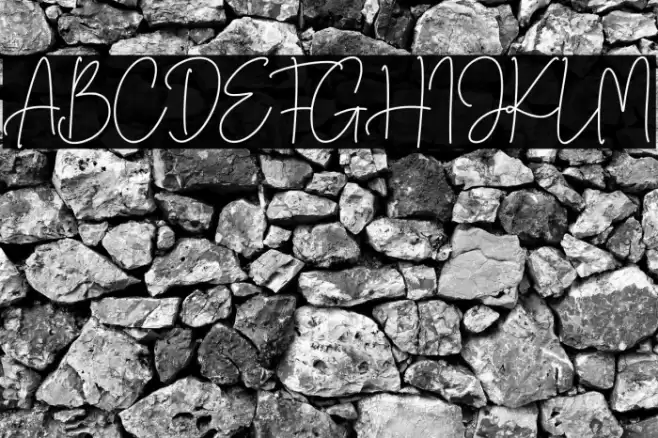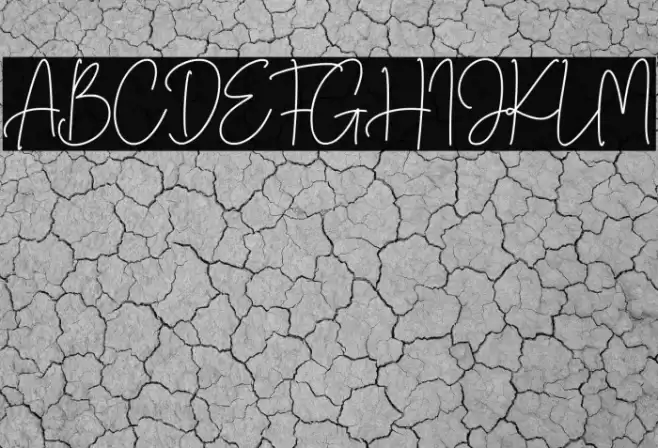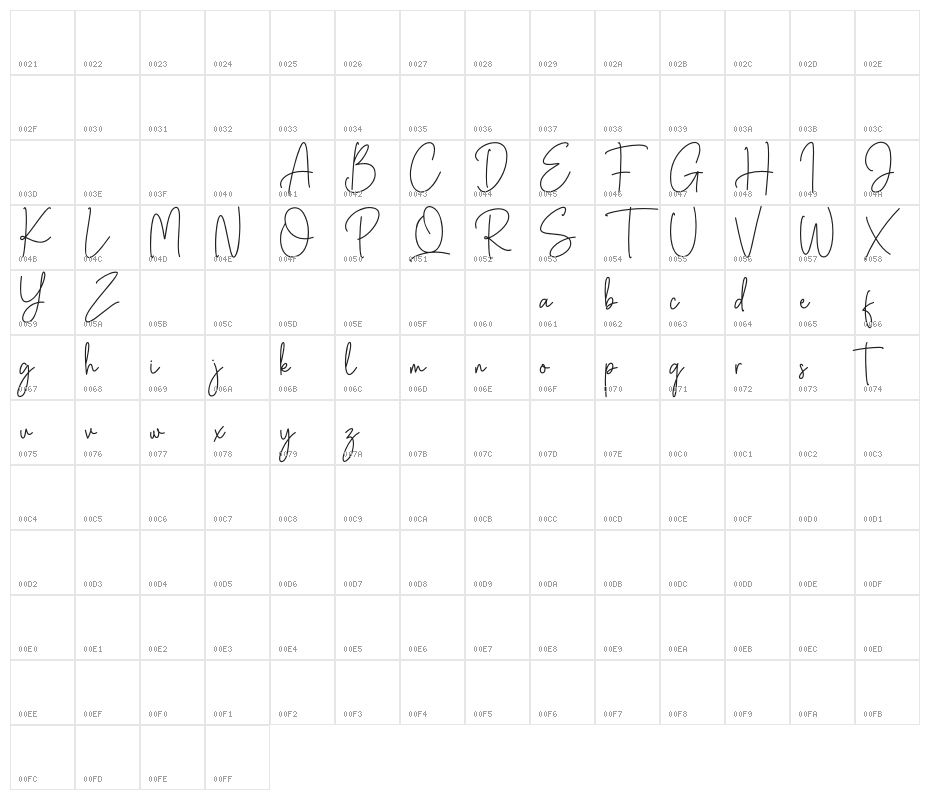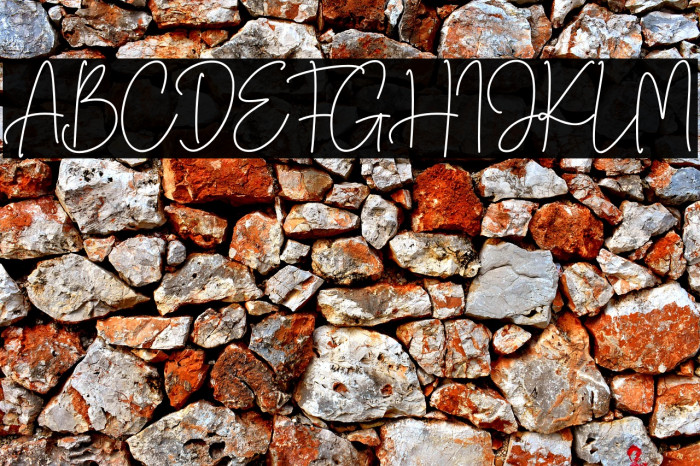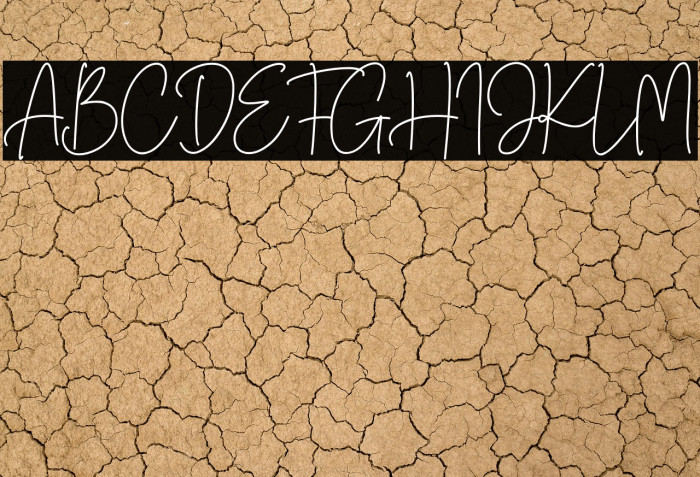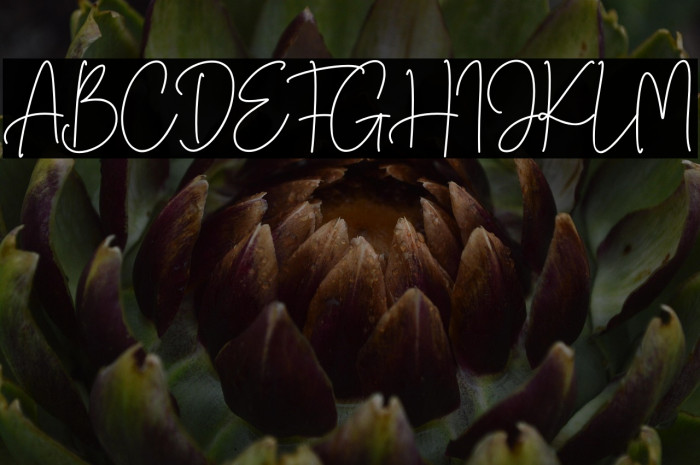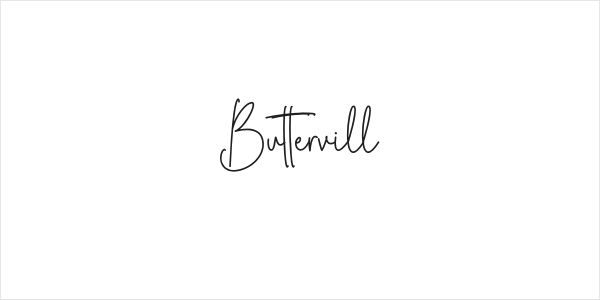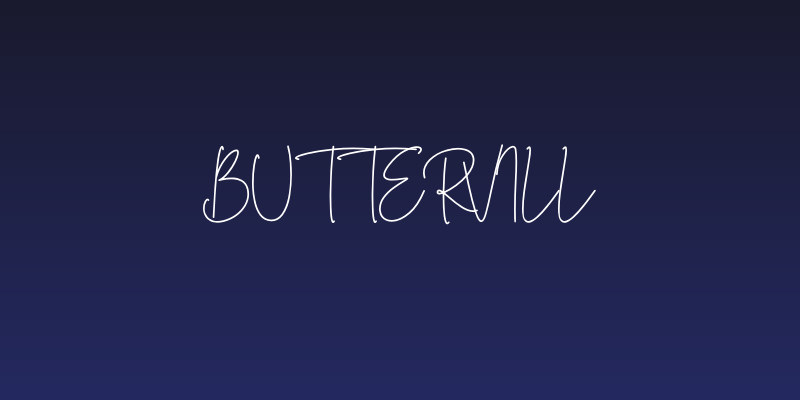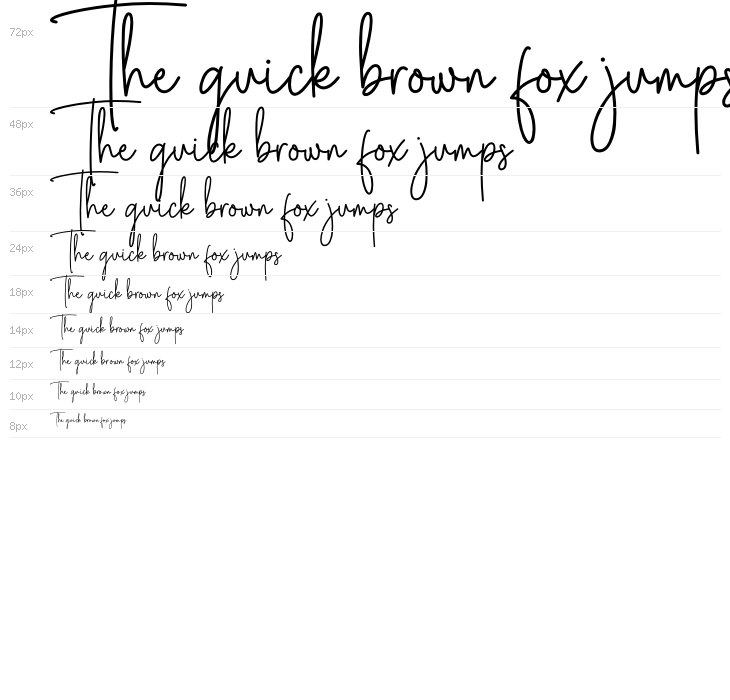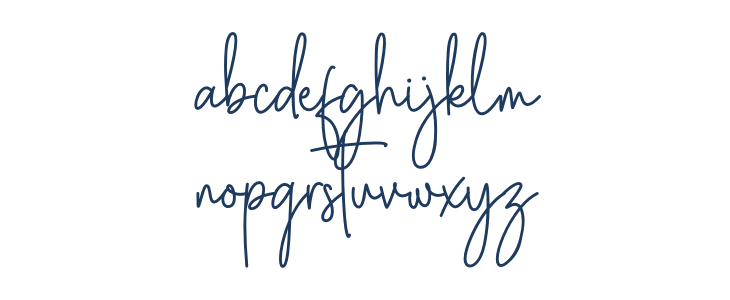
Buttervill Font
Buttervill Description
This font features a playful and elegant handwritten style with a flowing, cursive appearance. The uppercase letters are tall and slender, with a slight slant that adds a dynamic feel. The lowercase letters maintain a consistent flow, with some characters connecting smoothly to the next, enhancing the script-like quality. The strokes are thin, giving it a delicate and airy look, while maintaining legibility. The font includes a full set of uppercase and lowercase letters, numbers, and a selection of special characters, making it versatile for various design needs.
A playful, elegant handwritten script with thin, flowing strokes from Uncategorized fonts.
- Weight: Light